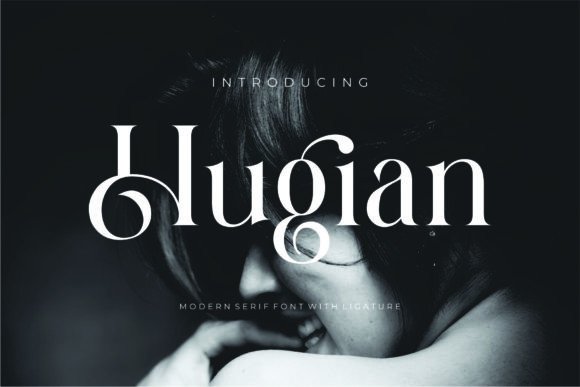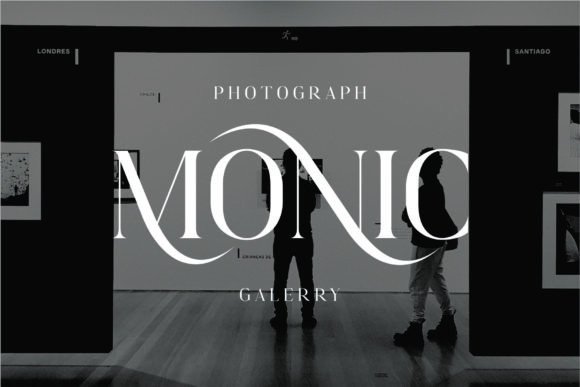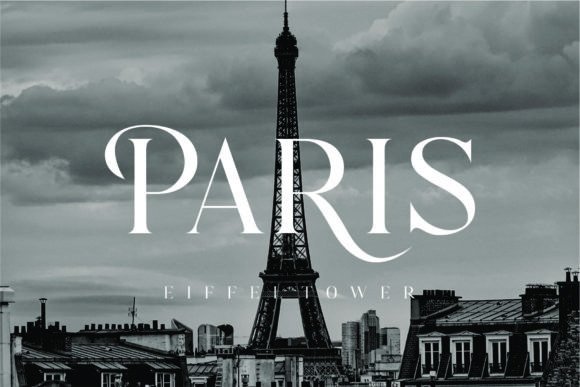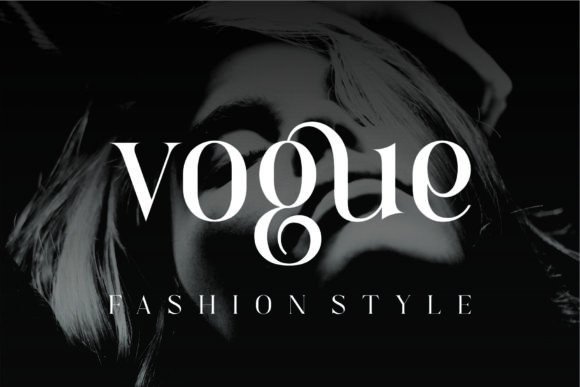
Hugian Font
About the Hugian Font
Presenting Hugian Font, a unique and stylish typeface that will make your work stand out. Hugian is an elegant serif font, inspired by the famous minimalist logo perfect for the purposes of designing templates, brochures, videos, advertising branding, logos, invitation, layout design, elegant crafting, beauty design and more.
Hugian’s elegant serif forms excel in headlines, short text blocks within brochures and invitations, and logo design where its refined minimalism shines. It’s equally effective for branding projects aiming for a sophisticated and timeless aesthetic. However, its delicate serifs make it unsuitable for body text or UI elements requiring high readability at smaller sizes. Avoid using it for long paragraphs or applications demanding extensive text.
Pairing Hugian with a clean sans-serif like Open Sans or Lato provides a strong contrast and enhanced readability when used together. For a more playful feel, consider a slightly rounded geometric sans-serif. Alternatively, a simple script font can add a touch of handwritten elegance, depending on the overall brand identity and design goal.
Hugian projects an overall aura of sophisticated minimalism and understated elegance, making it ideal for luxury brands, high-end products, and projects requiring a classic yet modern feel. Its restrained personality ensures it won’t overpower other design elements, acting as a strong yet subtle visual anchor.